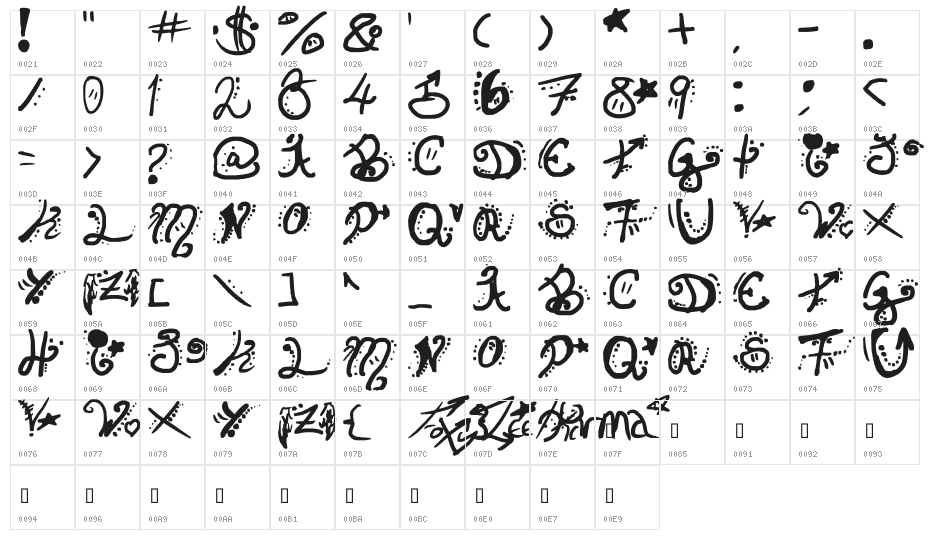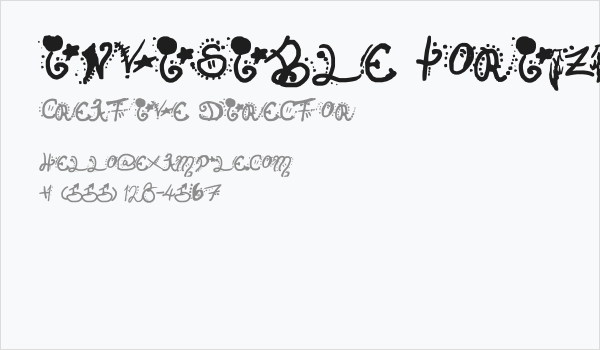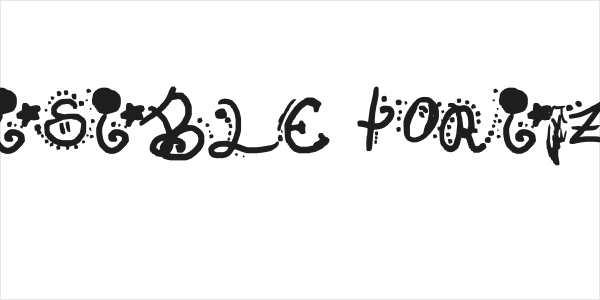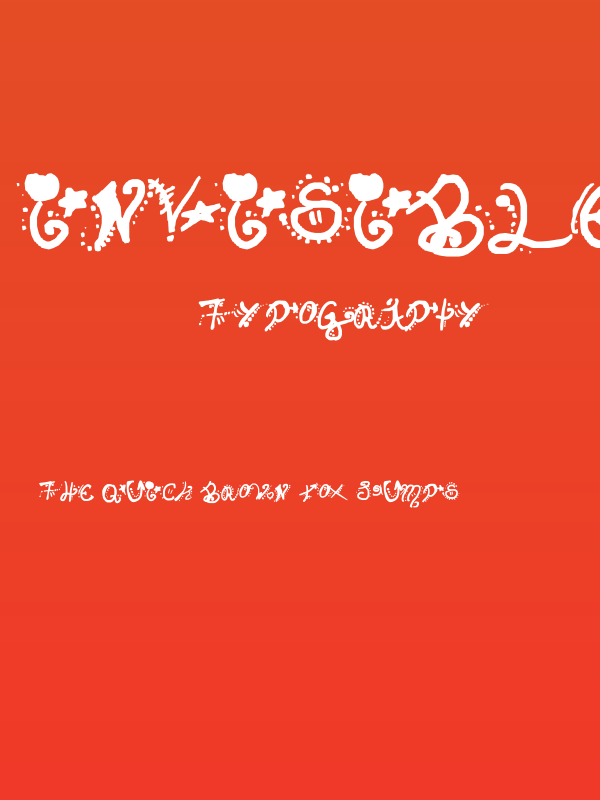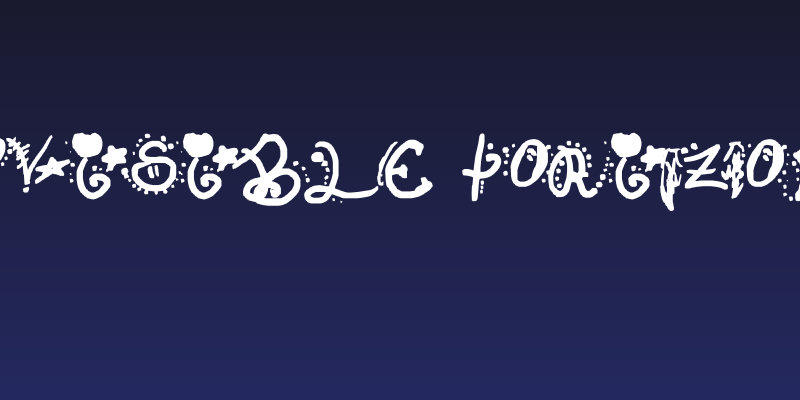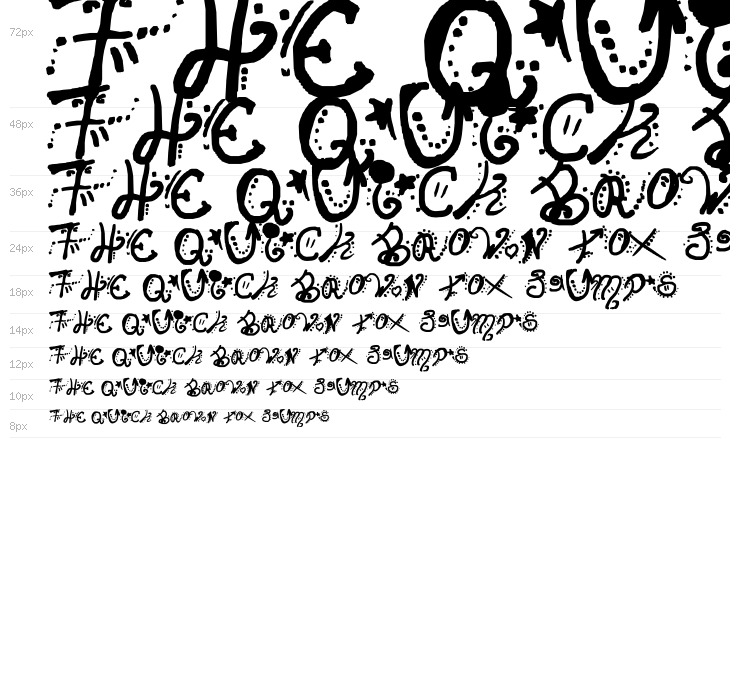
Invisible Horizons Font
Invisible Horizons Description
This font features a highly decorative and artistic style, characterized by its intricate and whimsical design elements. Each character is adorned with unique embellishments, such as dots, swirls, and stars, creating a playful and dynamic appearance. The letters have a hand-drawn quality, with varying stroke thicknesses that add to the font's expressive nature. The overall look is bold and eye-catching, making it suitable for creative and unconventional projects. The numbers and special characters maintain the same artistic flair, ensuring consistency throughout the font.
| Use Case | Logos, Posters, Creative Designs |
| Proposed Projects | Ideal for artistic projects, album covers, posters, and any creative design that requires a bold and unique typeface. |